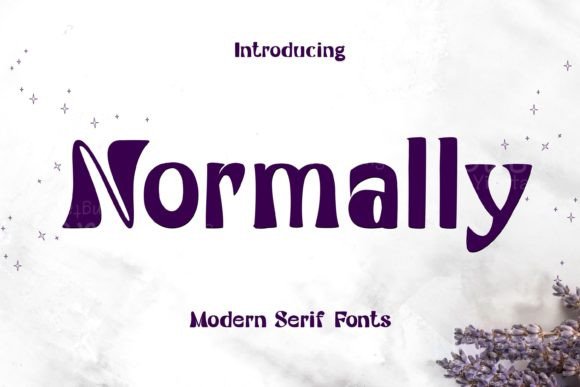
Introducing Normally, the captivating serif font that will transform your creative visions into remarkable realities. Designed by the ingenious N Nakorn Creative, Normally is a font of exceptional charm and versatility, perfect for a myriad of design projects.
With Normally, you can effortlessly create logos that exude sophistication and elegance, branding that radiates personality and distinctiveness, and wedding invitations that evoke a sense of romance and timeless beauty. Its farmhouse charm lends itself seamlessly to rustic decors and signs, adding a touch of warmth and coziness to any space.
Imagine your products adorned with Normally, their names and descriptions rendered in this enchanting font. Watch as they leap off the screen, captivating the attention of potential customers and leaving an unforgettable impression. Normally has the uncanny ability to transform ordinary designs into captivating masterpieces, adding a touch of magic to every project it graces.
But Normally's allure doesn't stop there. It effortlessly enhances mugs, shirts, pantry labels, and stickers, imbuing them with a unique character that sets them apart from the mundane. Business cards and greeting cards designed with Normally convey a sense of professionalism and warmth, leaving a lasting impact on recipients.
Social media posts, planners, prints, and websites adorned with Normally radiate a charm that entices viewers to engage, explore, and remember. Its timeless beauty transcends design trends, making it the perfect choice for projects destined for longevity.